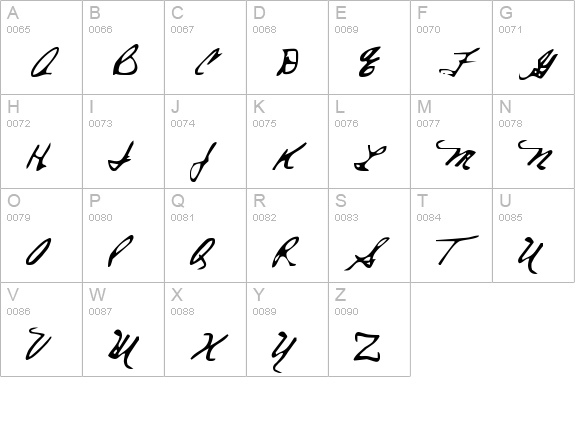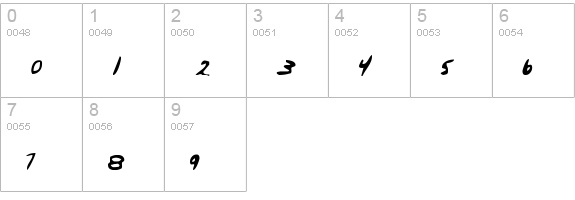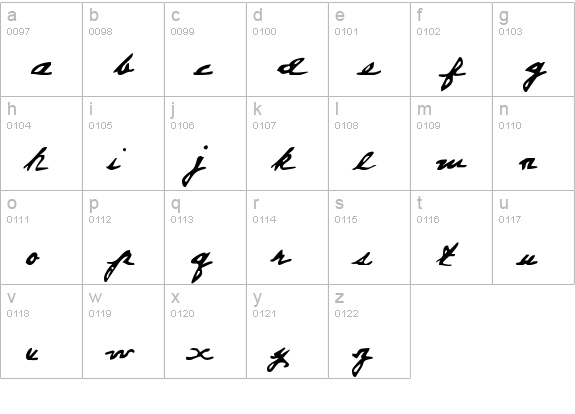
Everett Steele's Hand Font Details
Everett Steele's Hand font is a charming and versatile typeface that exudes a sense of warmth and friendliness. Crafted with care and attention to detail, this font captures the essence of handwritten script with a modern twist. The fluid strokes and elegant curves of Everett Steele's Hand font make it perfect for a wide range of creative projects, from branding to invitations to social media graphics. What sets Everett Steele's Hand font apart is not only its unique aesthetic appeal but also its accessibility. This font is freely available to download at FontsMarket.com, allowing designers and enthusiasts alike to incorporate its beauty into their work without any barriers. Whether you are a professional designer looking to add a personal touch to your projects or a hobbyist seeking a creative outlet, Everett Steele's Hand font is a fantastic choice that will surely elevate your designs.